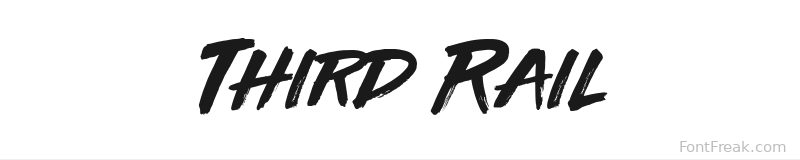
Third Rail
About Third Rail
The Third Rail font by BLKBK Fonts is a striking display typeface that exudes a contemporary yet rugged charm. This font is characterized by its bold, brush-like strokes that give it a dynamic and energetic feel, making it perfect for projects that require a touch of personality. The stroke weight varies significantly, creating a sense of movement and spontaneity that is visually engaging. Its moderate contrast and slightly irregular spacing contribute to its hand-crafted appearance, making it ideal for designs that aim to convey authenticity and creativity.
Third Rail excels in a variety of applications. It works wonderfully for eye-catching movie posters, where its expressive nature can draw in viewers. Additionally, this font can enhance the aesthetic of restaurant menus, adding a casual yet stylish flair that reflects a modern dining experience. It is also well-suited for event promotions, such as music festivals or art exhibitions, where a vibrant and artistic touch is essential. Graphic designers and content creators will find it particularly useful for branding projects, as it can help encapsulate a brand's unique voice and style.
Targeted toward graphic designers, small business owners, and creative content creators, the Third Rail font provides a versatile tool for anyone looking to make a bold statement in their designs. Its freeware license makes it accessible for personal and commercial use, allowing users to incorporate it into diverse projects without financial constraints.
What sets the Third Rail font apart is its ability to convey energy and creativity while maintaining legibility. This font stands out not only for its aesthetic appeal but also for its adaptability across various mediums. For those interested in enhancing their design toolkit, the Third Rail font free download offers an exciting opportunity to explore a distinctive typeface that can elevate any project.